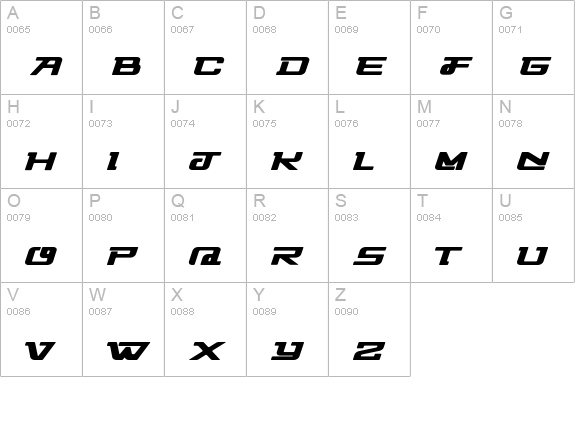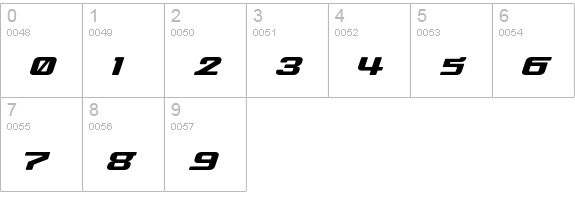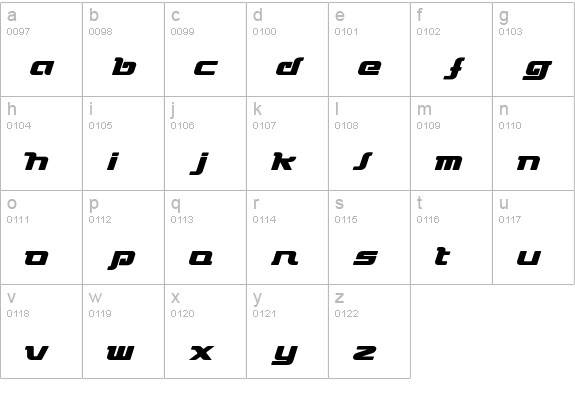
Ef4000cc Font Details
Ef4000cc is a captivating and modern font that exudes a sense of elegance and sophistication. With its sleek and streamlined design, it effortlessly combines classic elements with a contemporary twist, making it perfect for a wide range of design projects. This versatile font is sure to make a statement, whether used for branding, packaging, logos, or any other creative endeavor. Its clean lines and balanced proportions give it a timeless appeal, ensuring that it will remain relevant for years to come. One of the most appealing aspects of Ef4000cc is that it is available for free. Yes, you read that right! This exceptional font can be downloaded for free at FontsMarket.com, where you can easily access and enjoy its beauty without any cost. So why wait? Take advantage of this fantastic opportunity to enhance your designs with Ef4000cc. Its versatility, elegance, and affordability make it a must-have for any designer or creative professional. Download it today and let your imagination run wild with the possibilities that this amazing font has to offer.